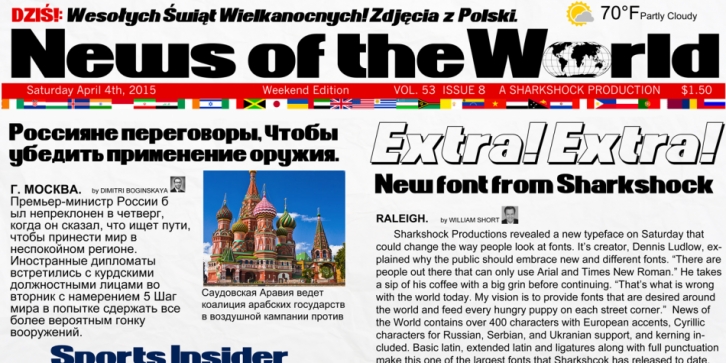
News Of The World is a display sans font family. This typeface has eight styles and was published by Sharkshock.
News of the World features broad, strong characters that appear to have come right off a magazine, sports blog, or newspaper. News of the World contains basic latin, extended latin, various ligatures, Eastern European accents, kerning, and full punctuation.
The smooth curves and broad strokes generate a very pleasing appearance when using “round” characters. You can produce the globe by keying the rarely used infinity symbol. This style demands emphasis and is sure to grab your audience’s attention.
8 different styles give your works some variety. Try Regular in all caps for an eye catching headline or Outline Italic for a company logo. The next time you’re thinking of using the same old lettering that came installed on your computer give this font a try instead.
· News Of The World Regular
· News Of The World Italic
· News Of The World Bold
· News Of The World Bold Italic
· News Of The World Outline
· News Of The World Outline Italic
· News Of The World Shadow
· News Of The World Shadow Italic